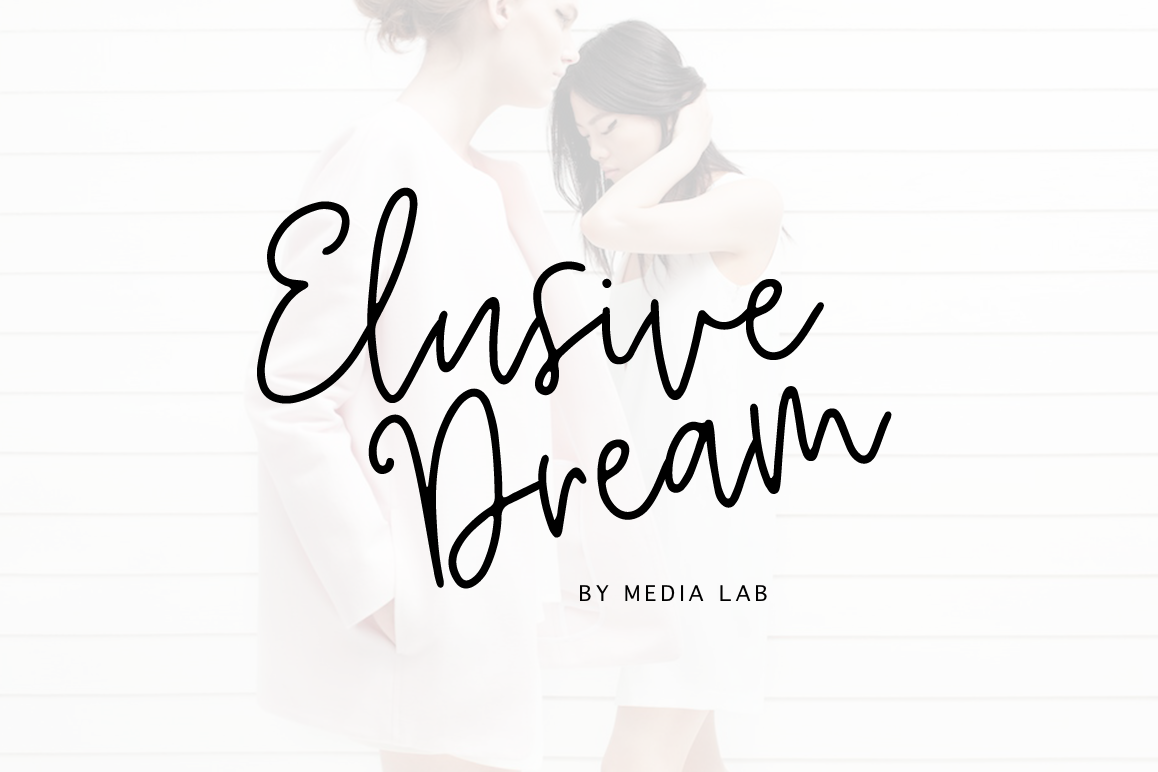
Elusive Dream handwritten script Monoline
This modern calligraphy script has been attentively written, with gentle curves to produce a font thats completely distinctive and original. It contains a full set of lower & uppercase letters, a large range of punctuation, numerals, and multilingual support. Perfect for adding a elegant and unique touch to your lettering projects and branding
• Support ALL European Languages